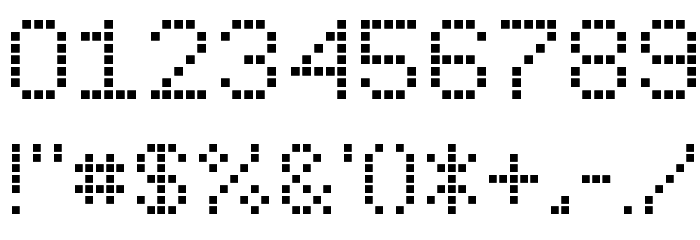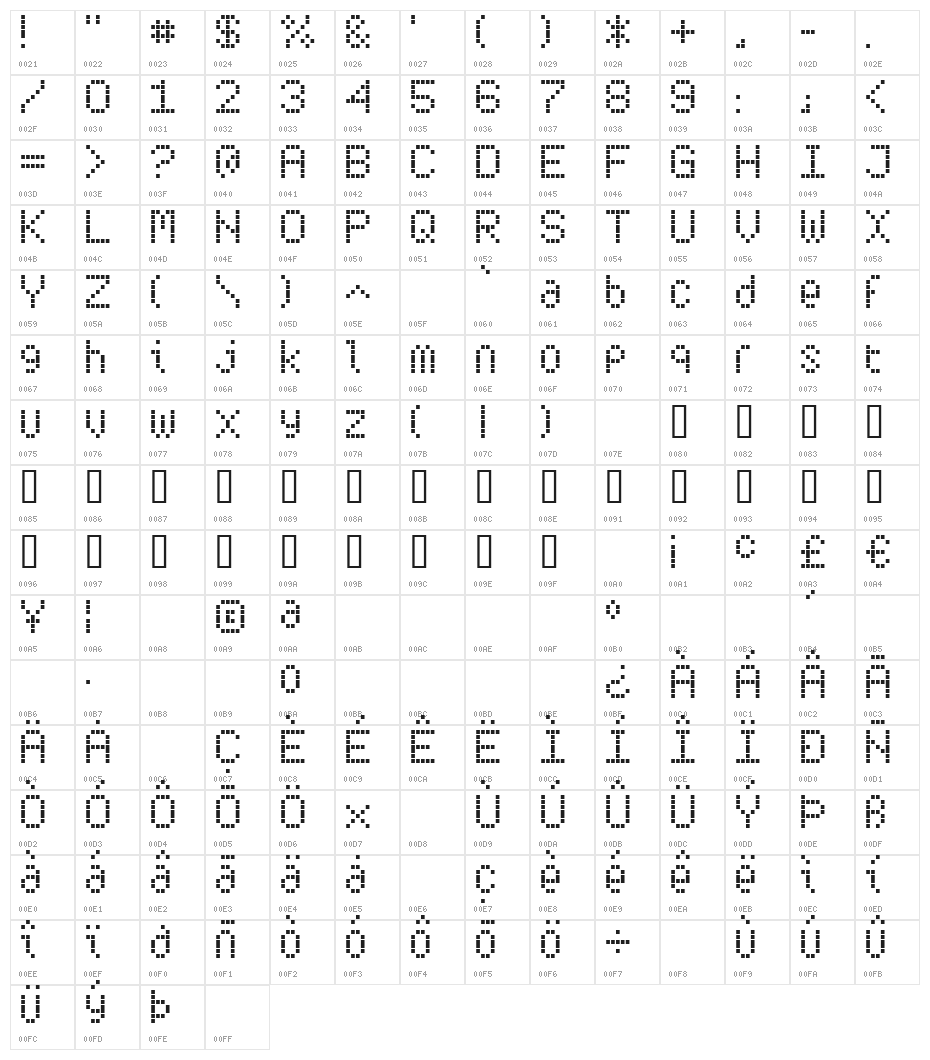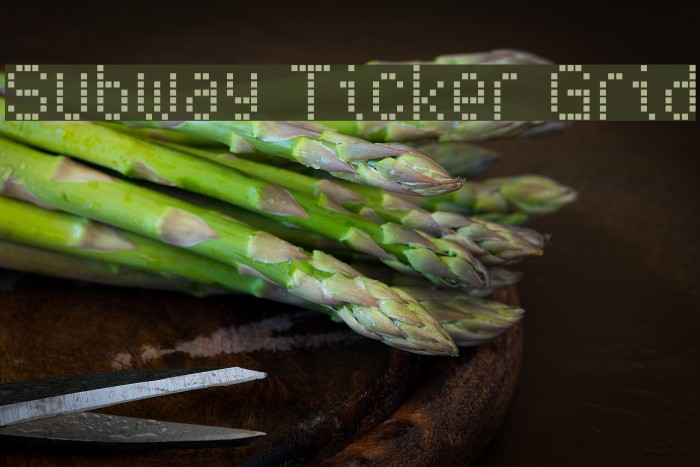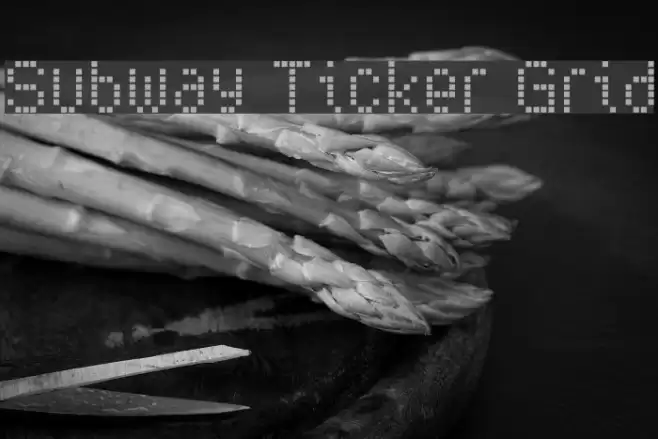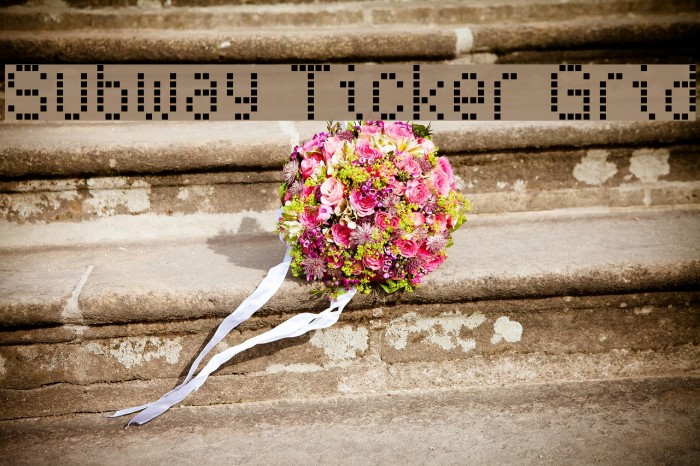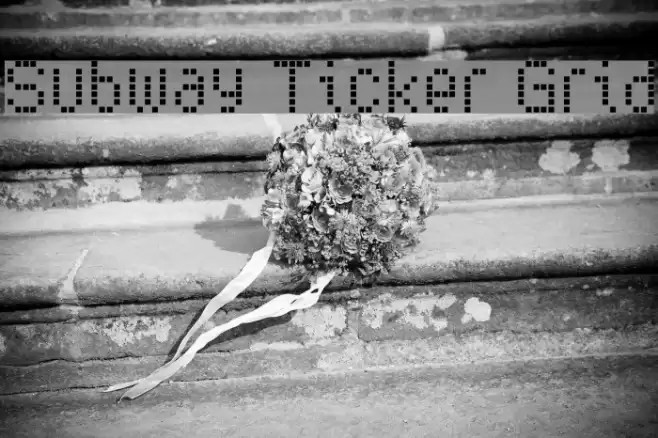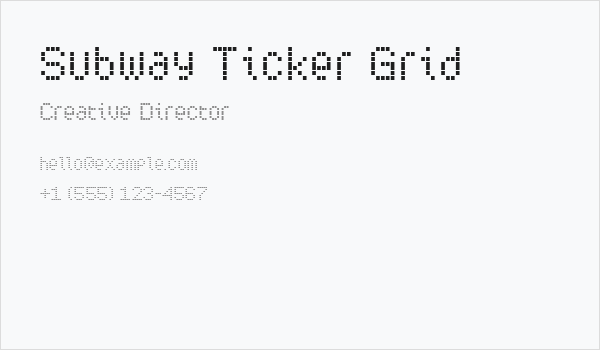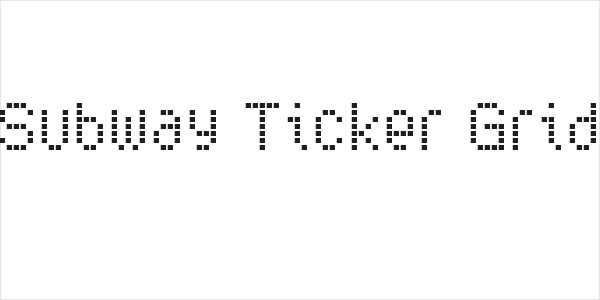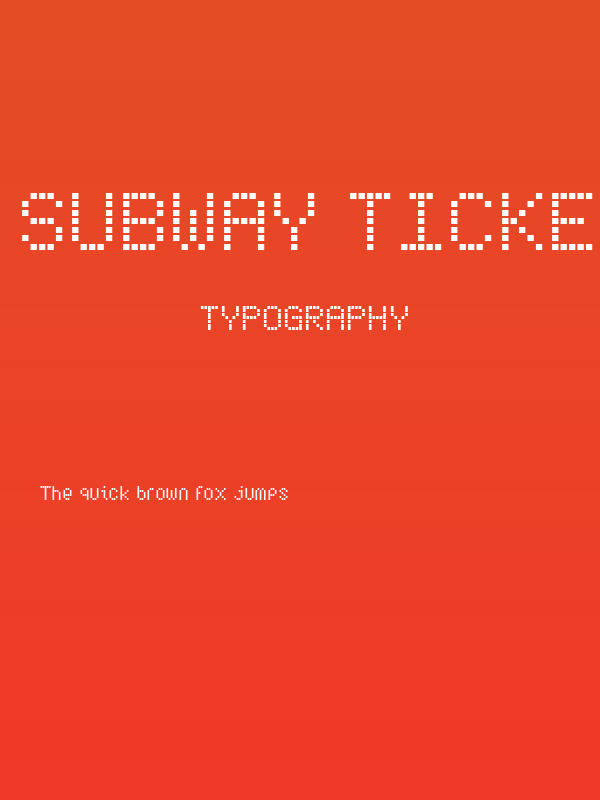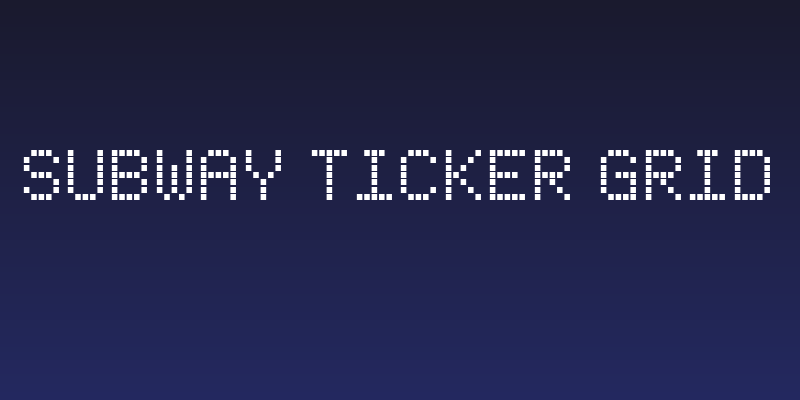
Subway Ticker Grid Font
Subway Ticker Grid Description
This font is a pixelated, grid-based typeface reminiscent of old digital displays or ticker tapes. Each character is composed of a series of small, evenly spaced dots, creating a distinct, retro digital aesthetic. The uniformity of the dots gives it a structured and mechanical feel, while the grid layout ensures consistent spacing and alignment. This style is particularly effective for conveying a sense of technology or vintage computing, making it ideal for projects that aim to evoke nostalgia or a digital theme.
| Use Case | Headlines, Logos, Digital displays |
| Proposed Projects | Ideal for digital-themed designs, retro video games, tech-related branding, or any project seeking a vintage digital look. |